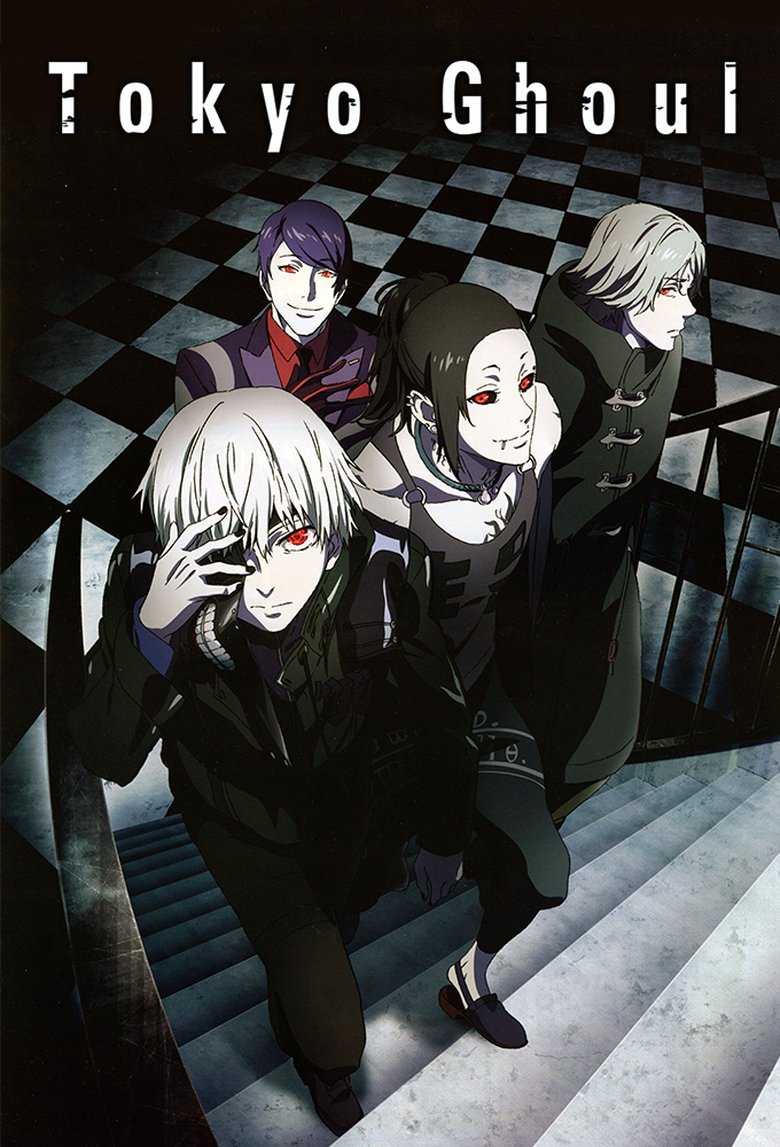
About the Tokyo Ghoul font
Tokyo Ghoul's logo drips with horror. Creepster brings that same eerie, flesh-and-blood dread for free.
What font is used in the Tokyo Ghoul logo?+
The original Tokyo Ghoul logo uses custom lettering. This generator recreates the look with Creepster — a free, open-license font you can style and download.